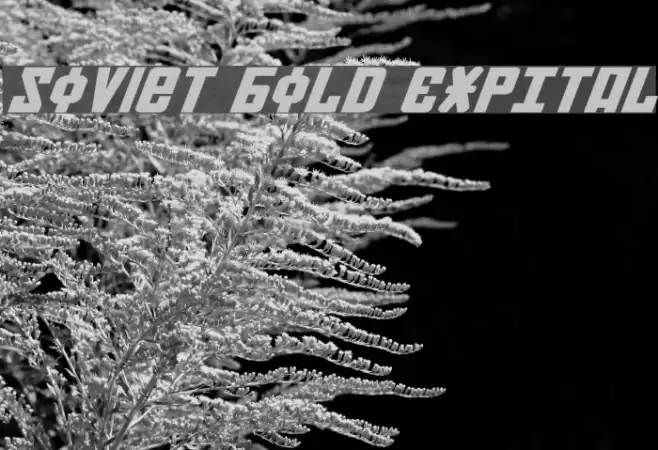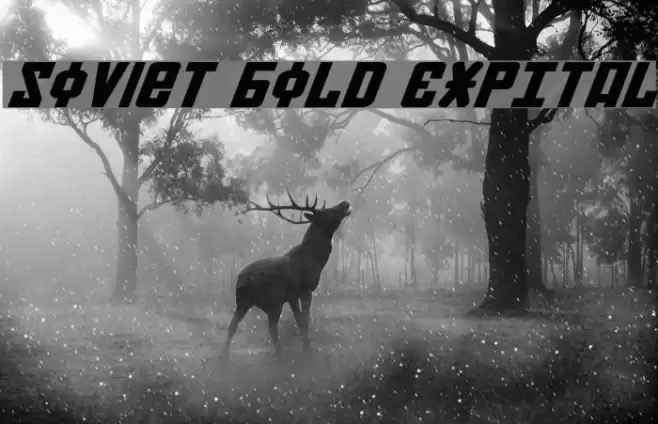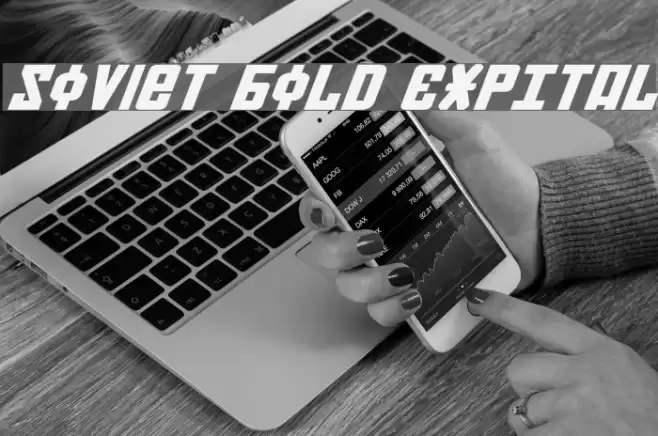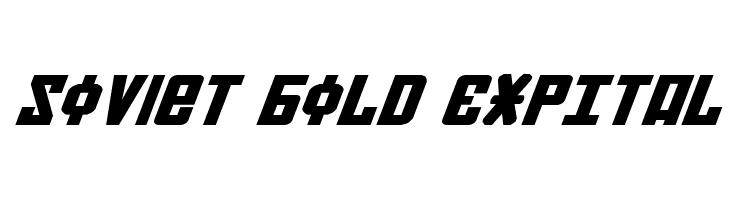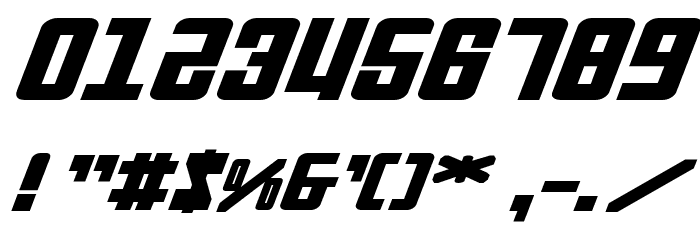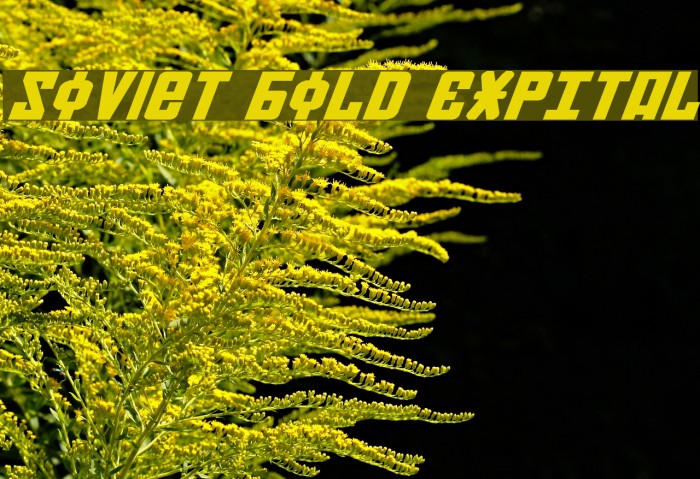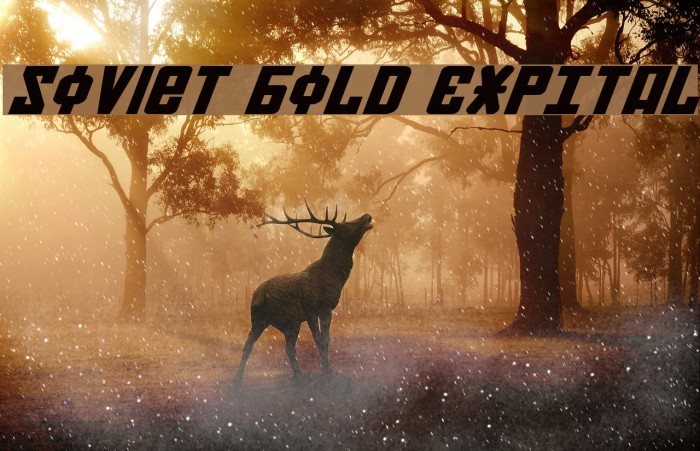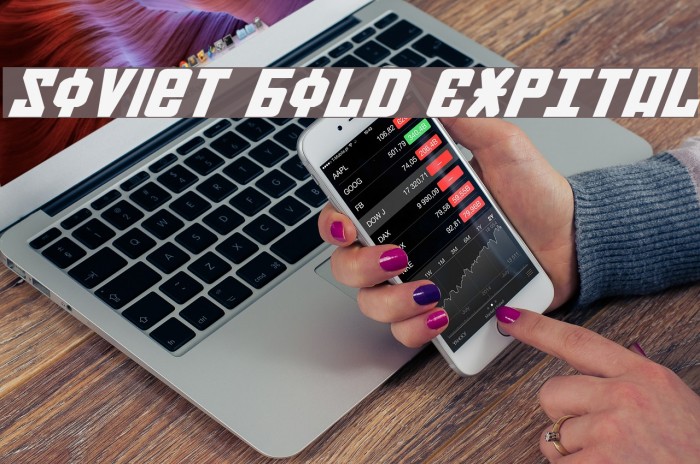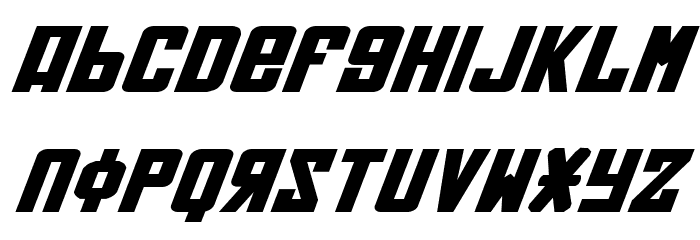
Soviet Bold ExpItal Font
Soviet Bold ExpItal Description
This font features a bold and expansive style with italicized characters, giving it a dynamic and assertive appearance. The uppercase and lowercase letters are designed with sharp angles and a forward-leaning posture, contributing to a sense of movement and urgency. The numerals and special characters maintain this bold, italicized style, ensuring consistency across all glyphs. The font's thick strokes and geometric shapes make it highly legible, even at smaller sizes. Its unique design is reminiscent of industrial or futuristic themes, making it suitable for projects that require a strong visual impact.
A bold, italicized font with a dynamic and assertive style from Uncategorized fonts.
- Proposed Projects: Ideal for use in posters, logos, branding, and any design requiring a strong, impactful presence.